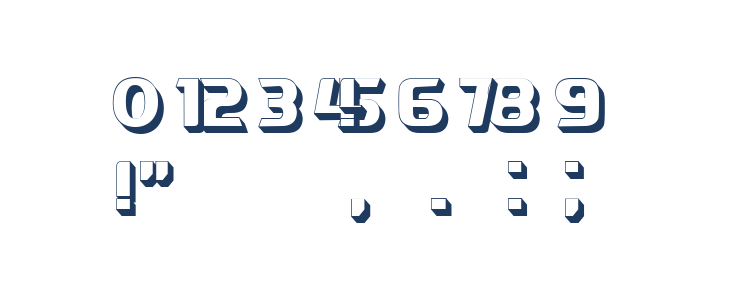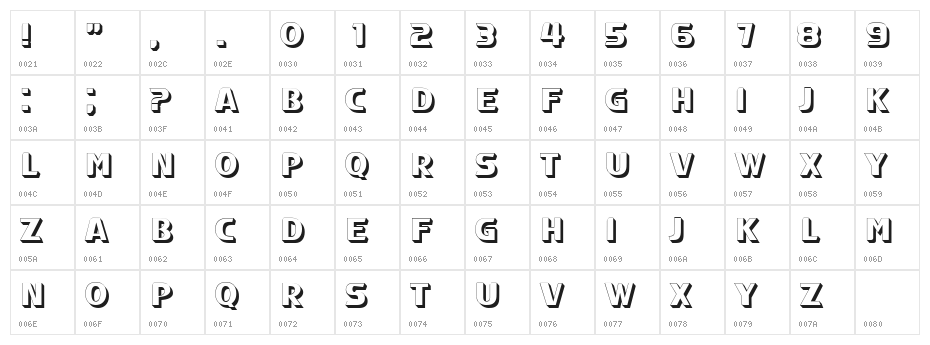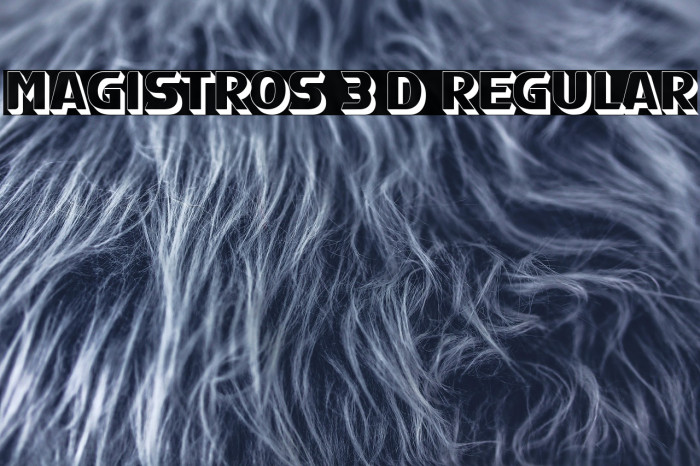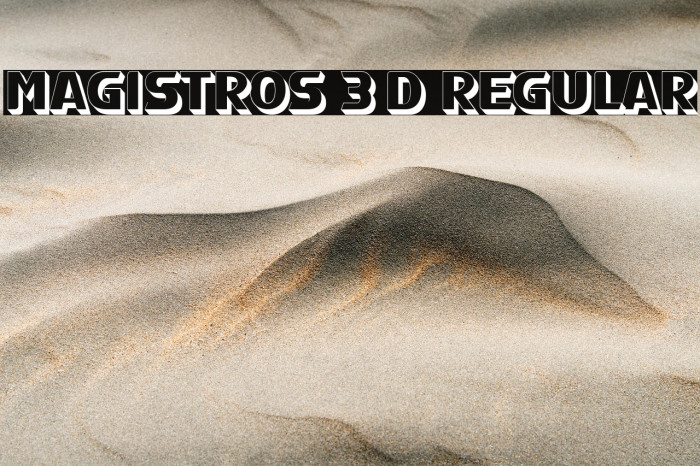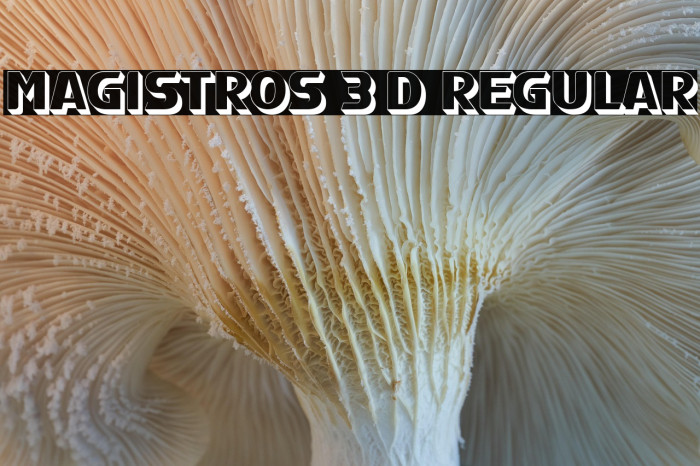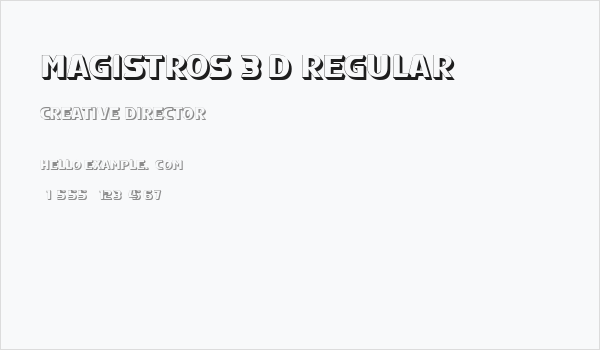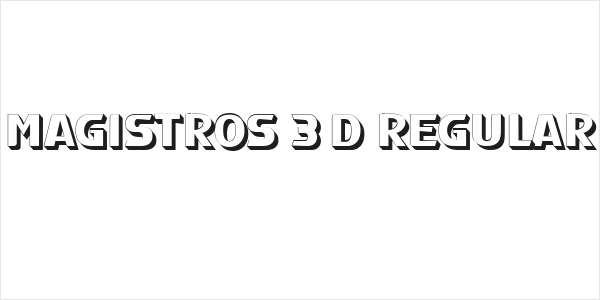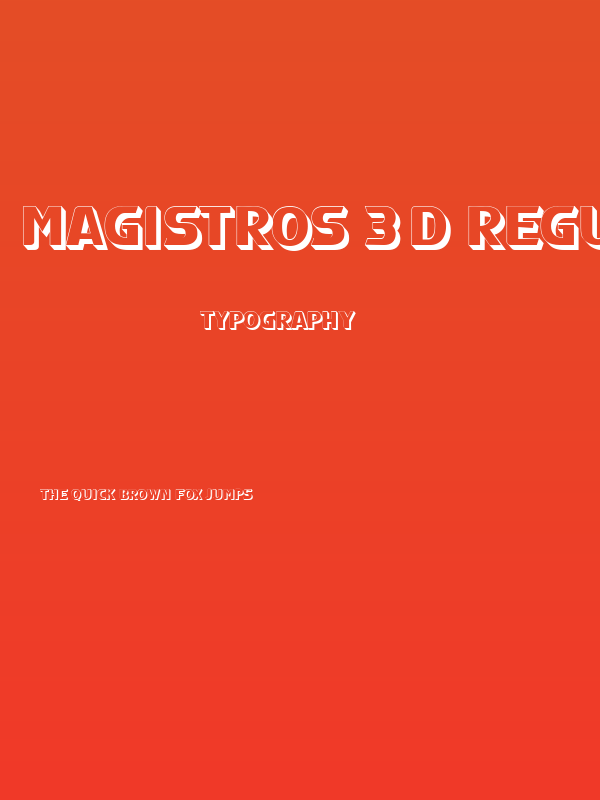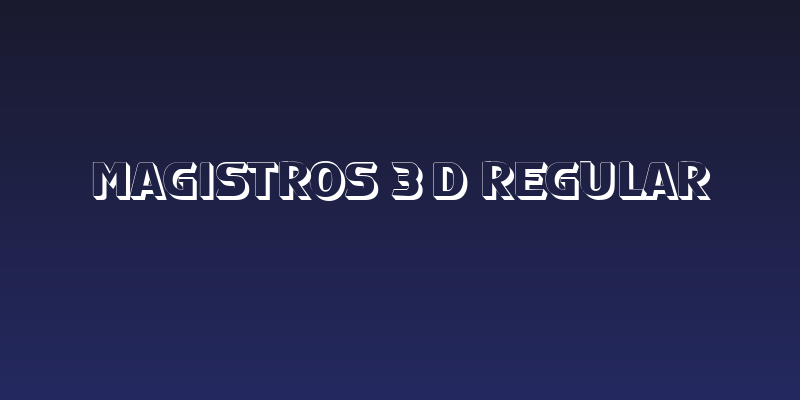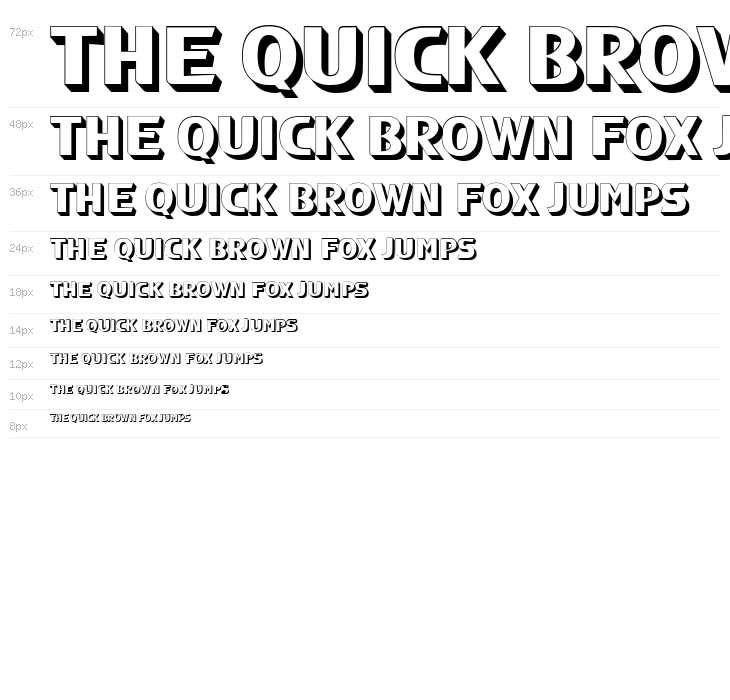
Magistros 3D Regular Font
Magistros 3D Regular Description
This font features a bold, three-dimensional appearance with a strong, shadowed effect that gives each character a sense of depth and solidity. The letters are capitalized, with a consistent thickness throughout, creating a uniform look. The shadow effect is prominent, adding a dynamic and eye-catching element to the text. The characters are well-defined with sharp edges, making them highly legible. This style is particularly suited for making a strong visual impact, ideal for titles or headings that need to stand out. The numbers and special characters maintain the same 3D effect, ensuring consistency across all elements.
Proposed ProjectsIdeal for posters, logos, headlines, and any design needing a bold, standout text.